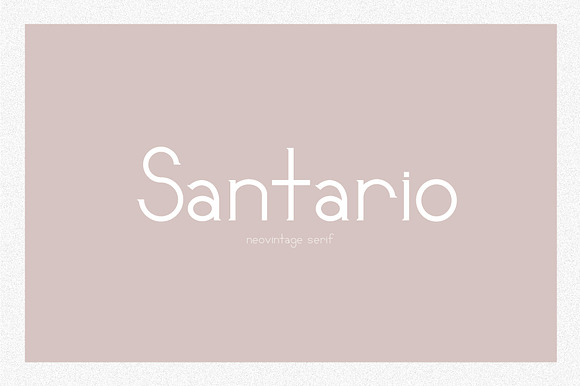
Santario | a serif font
Santario is a neovintage serif font and looks amazing in every context.
Why Santario | a serif font is worth a look
Santario | a serif font by white supply fits naturally into Branding, posters, packaging, typography.